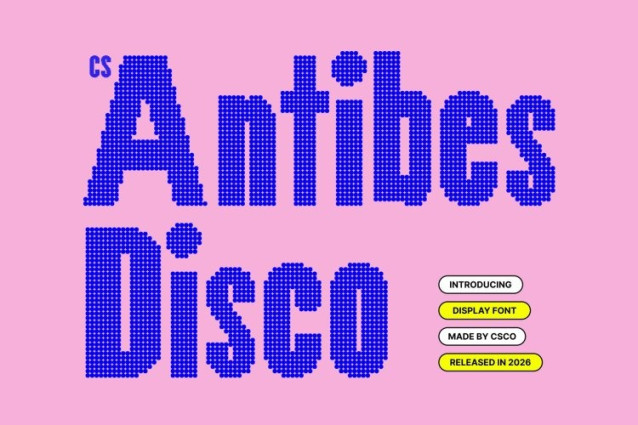
CS Antibes Disco Font
CS Antibes Disco Font This is a bold sans serif display font designed to command attention instantly. Its condensed proportions and confident construction create a powerful visual rhythm, giving every layout a sense of purpose, strength, and authority. Each letterform feels intentional and bold, ensuring high-impact communication.
Modern Design with Energetic Disco Expression
Clean lines and sharp structure define the modern character of this font, while subtle disco-inspired energy adds movement and vibrancy. This fusion brings a lively, expressive tone to its professional foundation evoking rhythm, light, and excitement without sacrificing clarity or control.
Condensed Efficiency with High Readability
The narrow structure of this font allows designers to create striking headlines and compact compositions with ease. Its condensed build maximizes space efficiency while maintaining excellent legibility, making it ideal for bold titles, branding systems, and impactful poster designs.
Perfect for Bold Branding and Expressive Visuals
From contemporary branding and advertising to editorial headlines and event promotions, this font delivers confident, modern flair. Its bold weight, condensed form, and energetic personality ensure your designs are not only seen, but remembered capturing attention with clarity, style, and disco-driven impact.